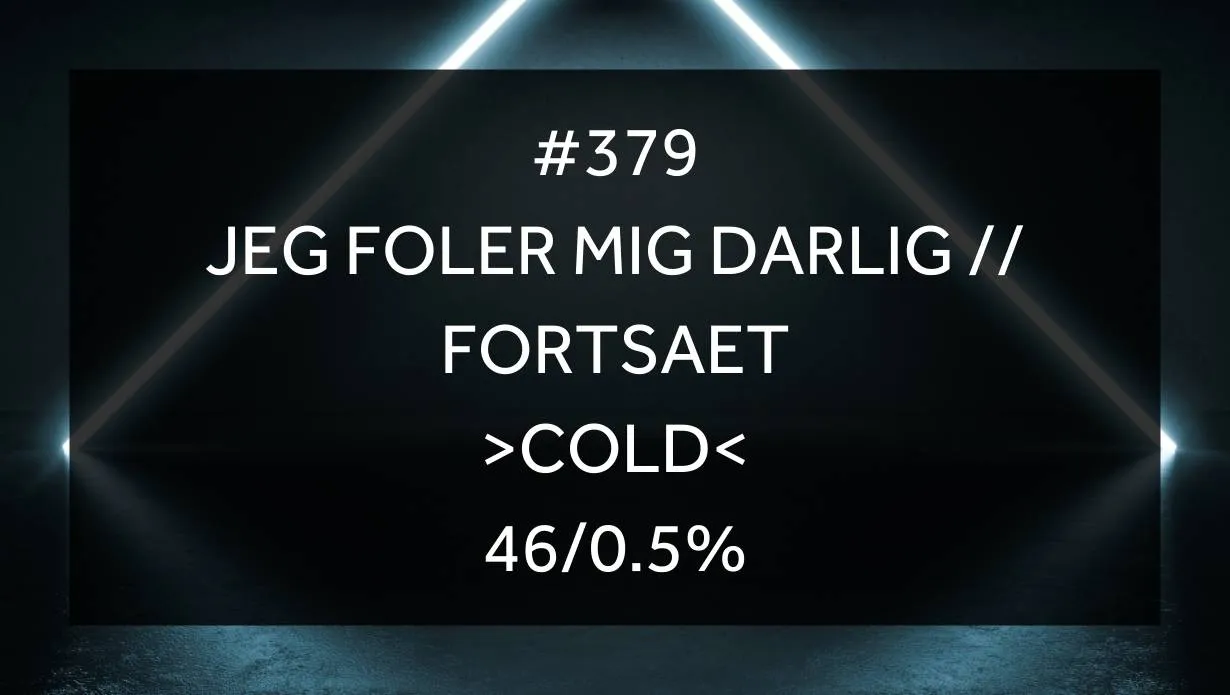
Effra Font is a sans-serif typeface designed by Edouard Hoffmann and released in 2013 through the Swiss foundry DaltonMaag.
The design is based on an early 20th-century sans-serif called Bailey, which was popular for display and headline use. This font is very close to the Asmath Sharp Font.
| Name | Effra Font |
| Designer | Edouard Hoffmann |
| Style | Sans Serif |